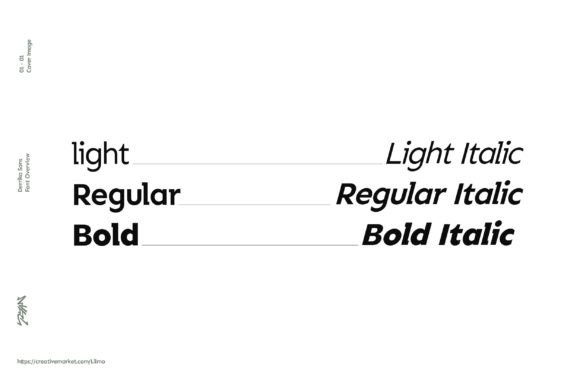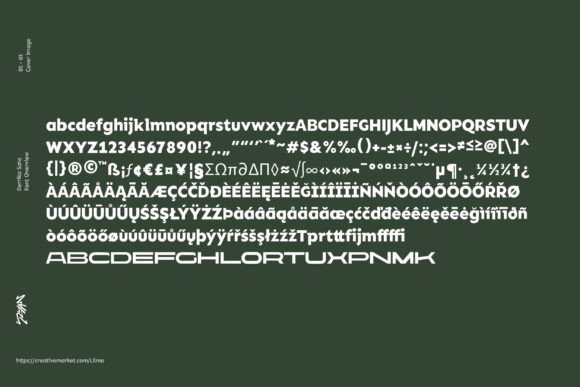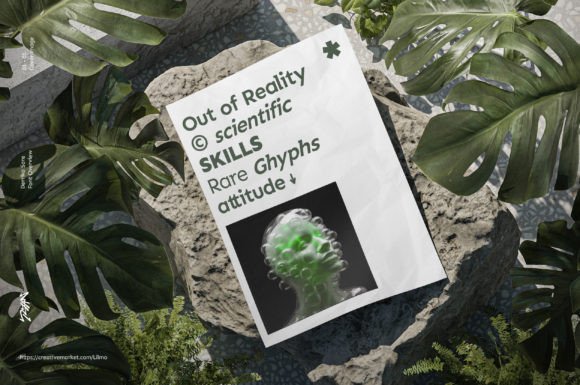
Introduction to Derika Sans Font
As a designer, you’ve probably experienced that moment when the perfect font is all you need to take your creative project to the next level. The words on the page spring to life, and your entire vision comes together in a way that’s nothing short of magic. For those of us who’ve been there, we know how crucial it is to have a reliable font that delivers every time.
Enter the Derika Sans Font, a game-changing addition to any design arsenal. With its bold, eye-catching aesthetic, this font is perfect for grabbing attention and making a lasting impression. Whether you’re working on a poster, a logo, or a branding project, Derika Sans Font is the perfect choice for designers who want to elevate their work to new heights.
Key Features of Derika Sans Font
- High-quality, modern sans-serif font ideal for creative projects and design resources.
- Includes multiple font weights, ranging from light to bold, to cater to diverse design needs.
- Features a clean and minimalist design, making it suitable for a wide range of creative projects and design resources.
Honest Review: Derika Sans Font
As a designer, I’m always on the lookout for high-quality design resources to elevate my creative projects. Recently, I stumbled upon the Derika Sans Font, and I’m excited to share my honest review with you.
- ✨ Clean and modern design aesthetic: Derika Sans Font exudes a sleek, contemporary feel that’s perfect for modern branding and digital projects.
- ✨ High-quality font files: The font files are well-crafted and offer a range of weights and styles, making it easy to find the perfect fit for your project.
- ⚠️ Limited language support: While Derika Sans Font is available in multiple languages, it’s not comprehensive, which may be a limitation for some designers.
- ⚠️ Not ideal for complex typography: While the font looks great for simple text, it may not be the best choice for complex typography or intricate designs.
Overall, I’m impressed with the Derika Sans Font. Its clean design and high-quality font files make it a great addition to any design arsenal. While it may have some limitations, it’s definitely worth considering for your next creative project. Plus, it’s a free download, making it an even more attractive option.
Derika Sans Font Overview
The Derika Sans Font is a high-quality design resource ideal for various creative projects. It features a clean and modern design, making it perfect for digital and print media. With a transparent background, it can be easily used on any design platform.
The Derika Sans Font is ideal for various design projects, including:
1. Digital signage
2. Business cards
3. Social media graphics